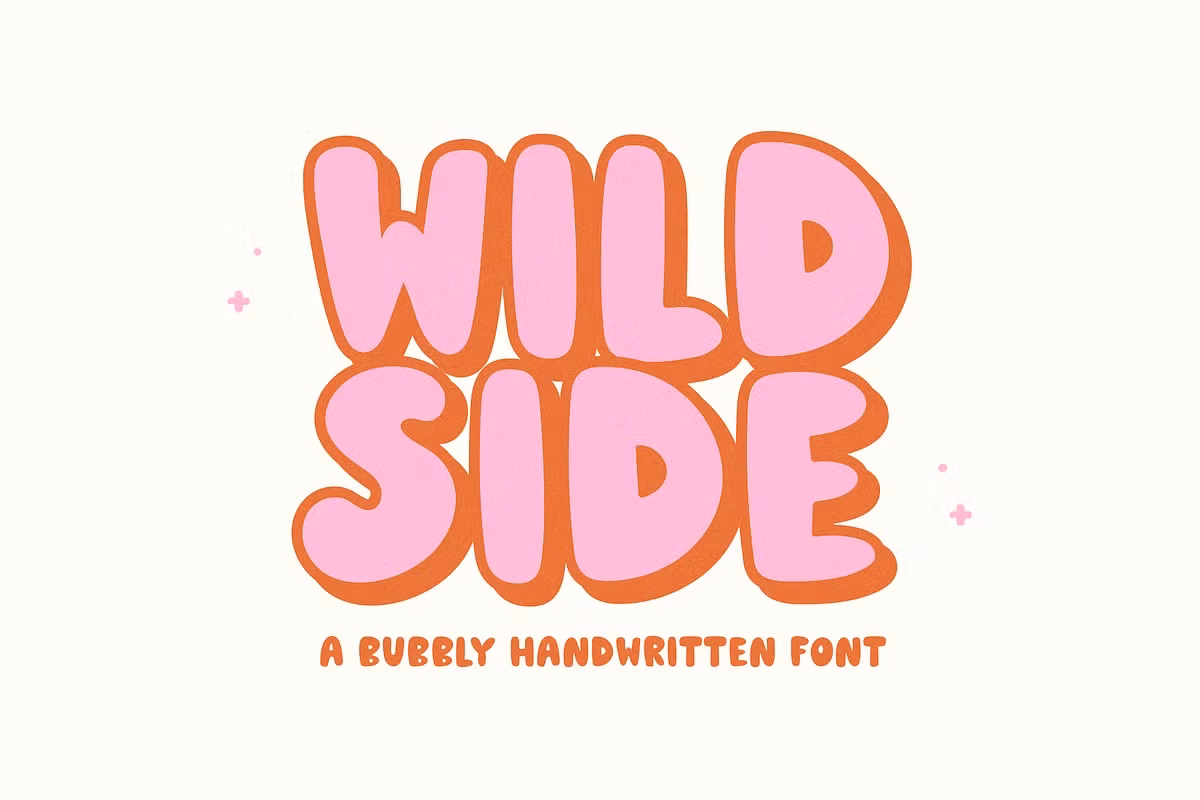
Wildside | Bubbly Handwritten Font Free Download
Fun, playful, and full of personality, Wildside | Bubbly Handwritten Font Free Download is a lively and quirky script font designed to add a cheerful, hand-drawn touch to your designs. Perfect for logos, greeting cards, posters, social media graphics, and more, this font brings a sense of playfulness and energy to your typography.
With its bubbly, rounded letterforms and natural flow, Wildside captures the feel of casual handwriting with a creative twist, making it ideal for any project that needs to feel friendly, approachable, and full of life.